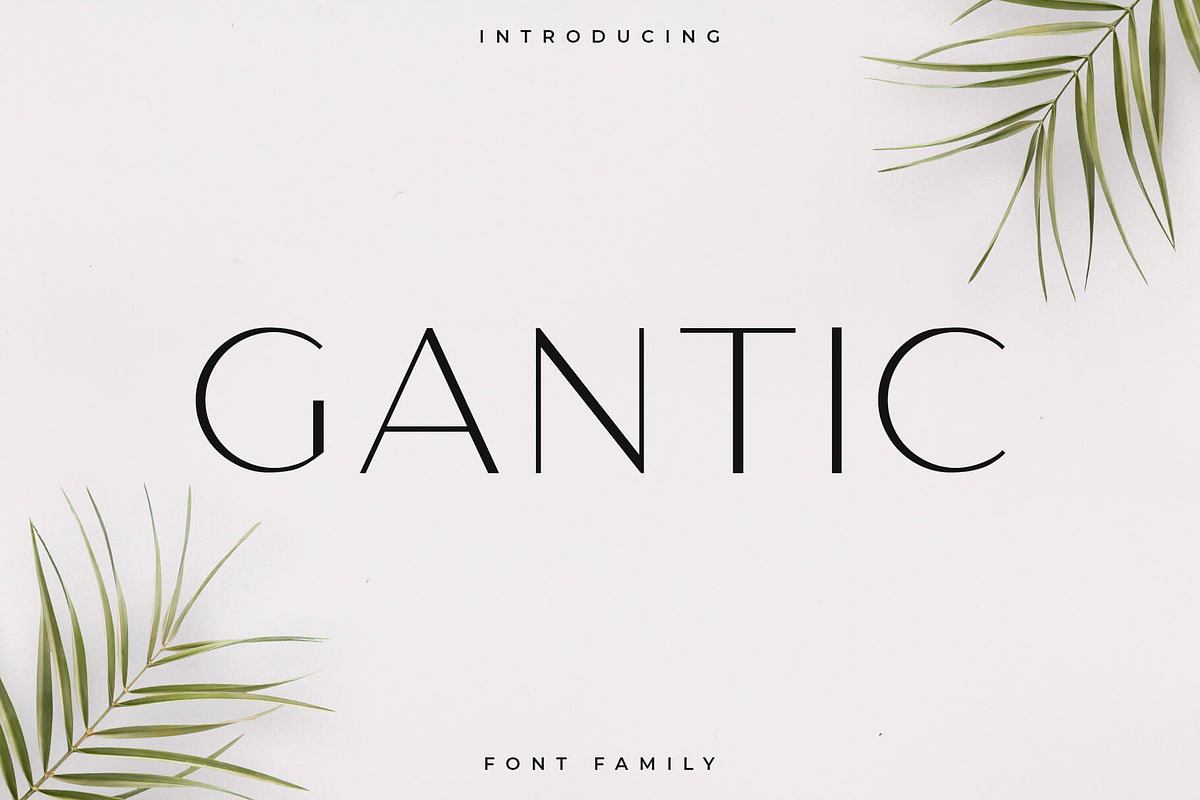
Please note, you must purchase this font for commercial use. However, you can easily download Gantic Font Family Free Download for personal use and testing purposes. Gantic Font Family is a versatile and modern typeface that includes a variety of weights and styles, offering flexibility for a wide range of design projects. Whether you're working on branding, logos, editorial layouts, or websites, this font family provides both readability and a contemporary aesthetic. With clean lines, strong letterforms, and balanced proportions, Gantic Font Family Free Download works well in both digital and print applications. Download Gantic Font Family Free Download today and explore its potential before opting for a commercial license.